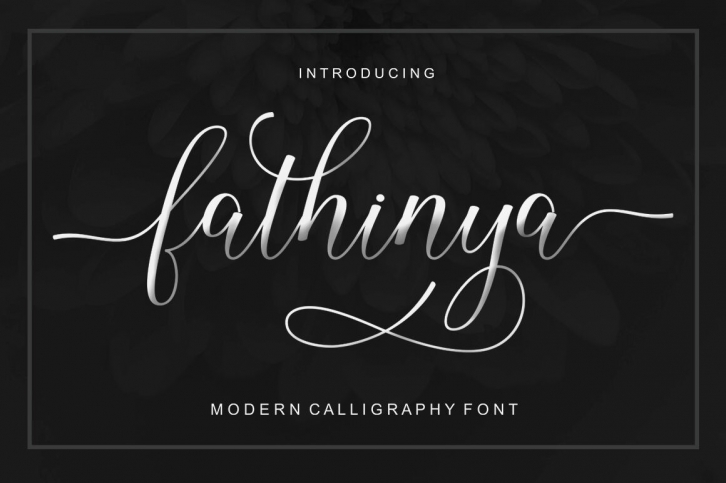
fathinya is a calligraphy script font that comes with beautiful alternative characters. a mixture of copper calligraphy with handleting style. Designed to bring style elegance. fathinya a feminine, sensual, glamorous, simple and very readable typeface. The classic style is perfect to apply in various formal forms like invitations, labels, menus, Logos, fashion, make up, stationery, letterpress, romantic novels, magazines, books, greeting / wedding cards, packaging, labels.fathinya has multiple language support. With OpenType features with stylish and character alternatives, it allows you to mix and match letter pairs to fit your design, as well as a touch of ornament to make this font look elegant.